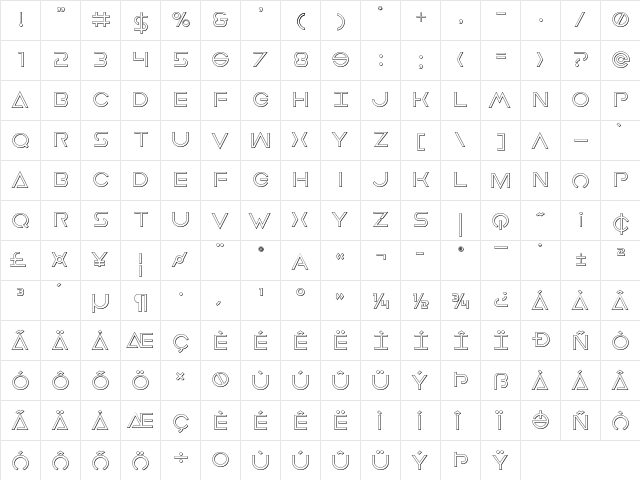
Earth Orbiter Outline Outline
Design Context for Earth Orbiter Outline Typeface
Earth Orbiter Outline is built around its visual character rather than neutral utility — its distinctive forms are designed to make an impression at display sizes.
Font Pairing: Pair with a clean neutral sans-serif for body copy to let Earth Orbiter Outline's character lead without overwhelming the composition.
Pro Tip: Treat Earth Orbiter Outline as the centrepiece of your typographic hierarchy. One strong heading set in a decorative face can carry an entire layout.